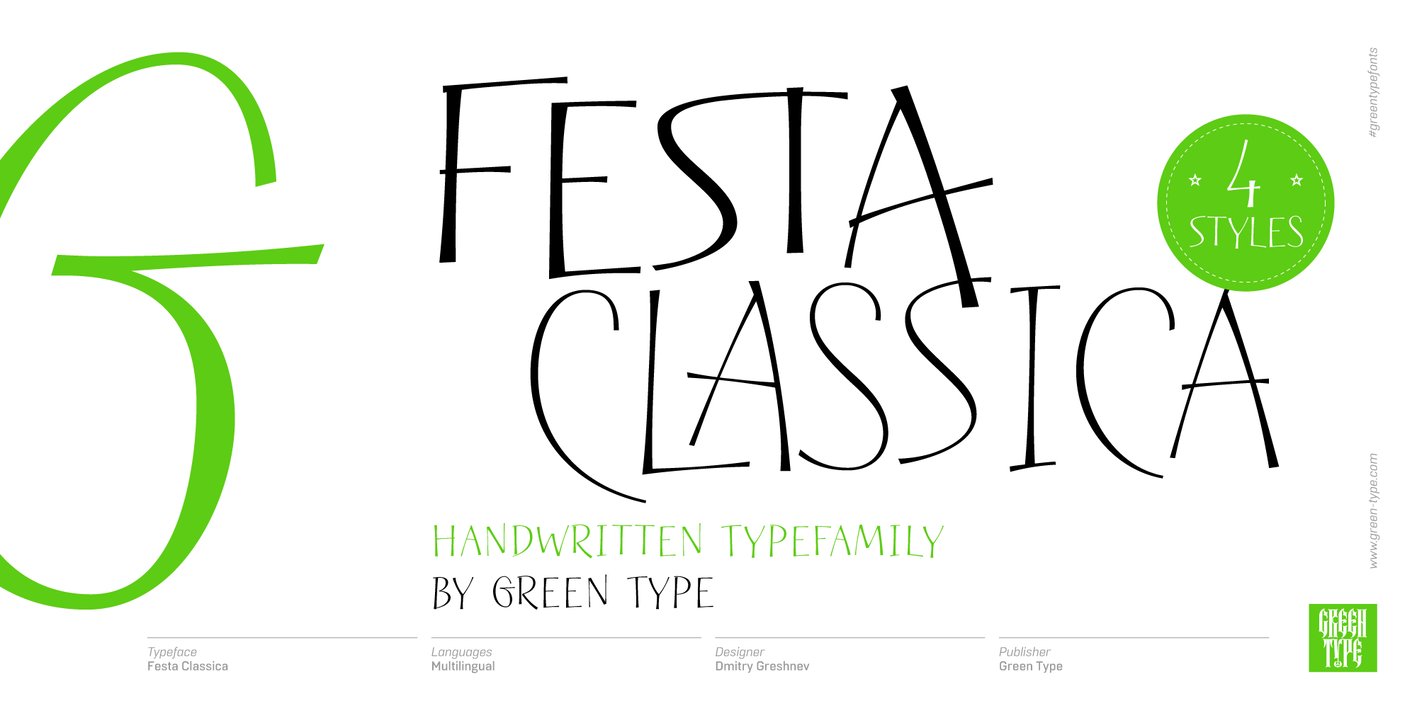
Festa Classica Font is perfect for celebration event branding, party invitations, festival marketing, gala dinner materials, anniversary celebrations, and festive product packaging where joyful elegance meets classical sophistication.
What makes Festa Classica Font exciting is its perfect balance of celebratory energy and timeless classical refinement, making it ideal for brands seeking to convey joy, tradition, and sophisticated entertainment experiences.
Festa Classica Font family includes festive variations: Regular, Bold, Light, Ornamental, and Decorative versions, providing designers with comprehensive options for celebration and event-focused design projects.
This magnificent typeface celebrates the art of sophisticated festivities with its elegant letterforms and joyful character that transforms ordinary events into memorable occasions. Festa Classica Font Free Download provides designers with typography that embodies the spirit of classical celebration and refined entertainment. The font's distinctive festive aesthetic makes it perfect for event planning companies, luxury hotels, and cultural institutions. Its celebratory design works beautifully for both traditional applications like formal invitations and modern uses such as event websites and social media campaigns. The carefully crafted proportions ensure excellent readability while maintaining the elegant, festive atmosphere that defines quality celebration design. Whether you're creating wedding reception branding, cultural festival materials, or luxury party planning services, this font delivers the sophisticated joy and classical elegance that makes special occasions truly unforgettable for guests seeking memorable experiences that honor tradition while embracing contemporary celebration styles and creating lasting memories.